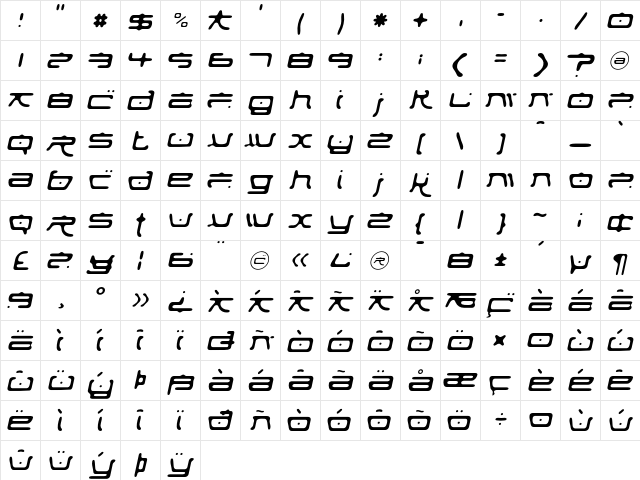
Fufanu Italic
Design Context for Fufanu Typeface
Fufanu is a composed and adaptable typeface that performs quietly and consistently across a wide range of design contexts. Its italic angle brings a sense of urgency and motion to the letterforms.
Pro Tip: Use Fufanu for emphasis, pull quotes, and subheadings where its slanted energy can add rhythm to the layout.